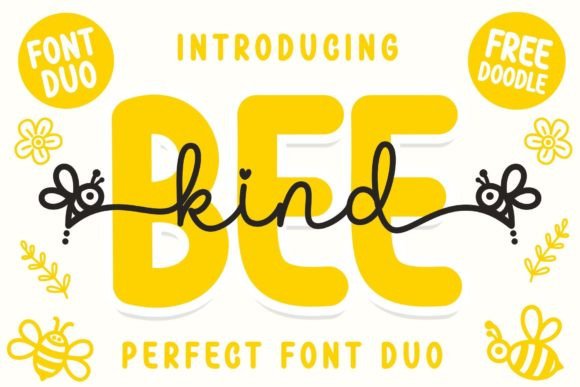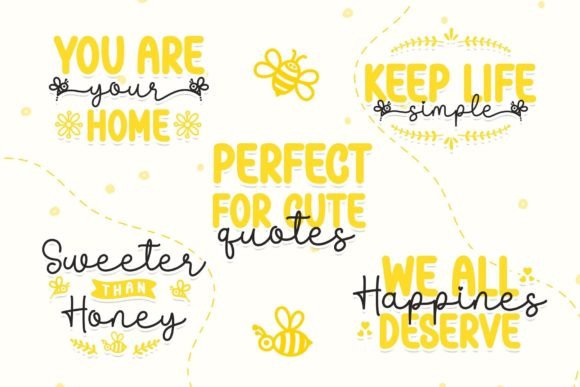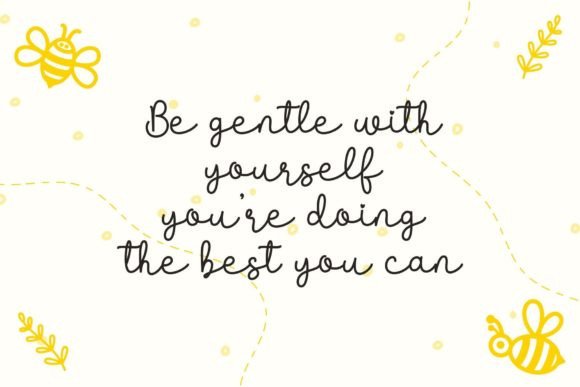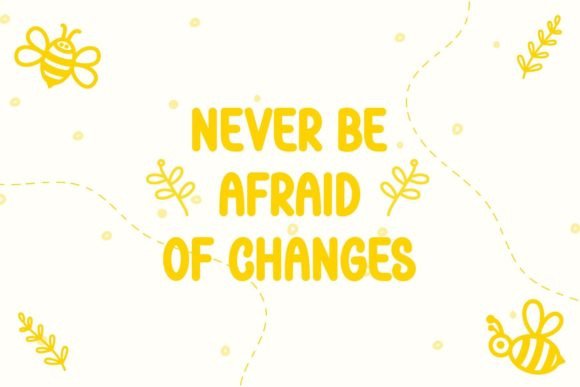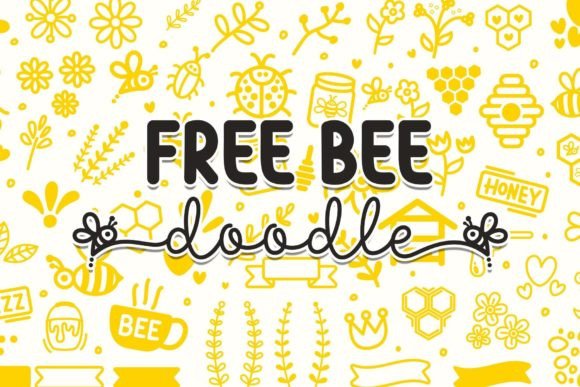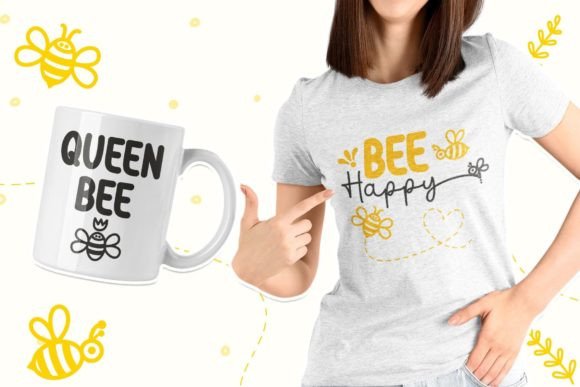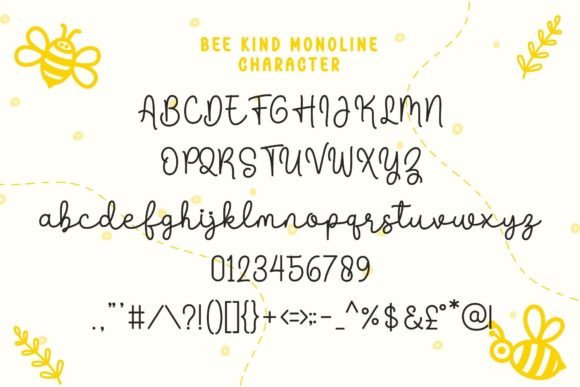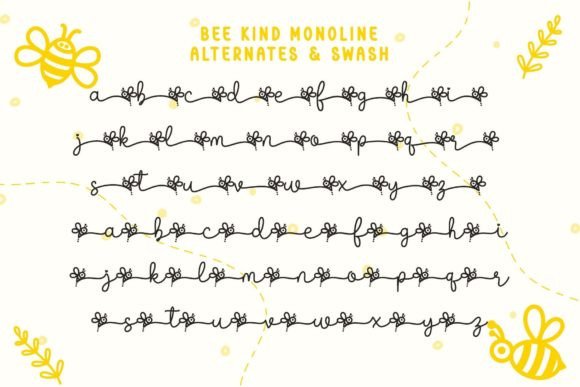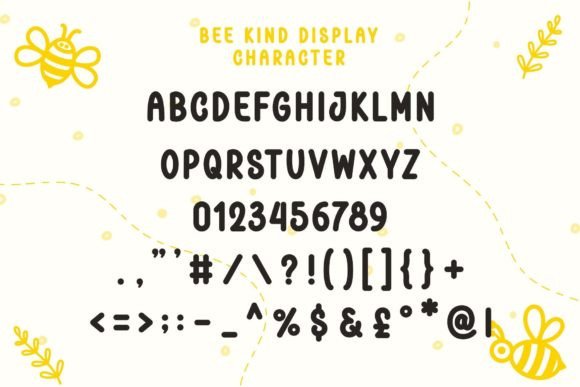
Bee Kind Duo Font
About Bee Kind Duo Font
Bee Kind is a delightful and playful font duo featuring two styles – script and sans display. Inspired by cute bees, this font is perfect for creating adorable and kids’-related products. The combination of script and sans styles adds versatility to your designs, allowing you to create eye-catching and playful compositions for various creative projects.
The script style of Bee Kind brings a whimsical and handwritten charm to your text. Its playful curves and flowing lines add a lively and friendly touch, making it ideal for projects targeting children and those who appreciate cute and cheerful designs. The sans display style, on the other hand, provides a clean and modern aesthetic, offering a nice contrast to the script font.
The font’s PUA (Private Use Area) encoding ensures easy access to all the available glyphs and swashes. This feature allows you to customize your text with unique and decorative elements, giving you creative freedom and flexibility in your designs. With a wide range of adorable glyphs and swashes, Bee Kind enables you to create custom lettering that perfectly suits the playful and fun theme of your projects.
Whether you’re designing children’s books, creating playful logos, crafting cute merchandise, developing colorful posters, or working on any other kids’-related products, Bee Kind is the perfect font duo. Its fun and playful nature adds a touch of joy and excitement to your designs, making them appealing to both children and the young at heart.
Embrace the creativity of Bee Kind and explore the endless possibilities it offers for your playful and adorable design projects. Let your imagination run wild and create charming compositions that spread happiness and cheerfulness to your audience. With Bee Kind, you can bring a smile to everyone’s face with your delightful and whimsical designs.